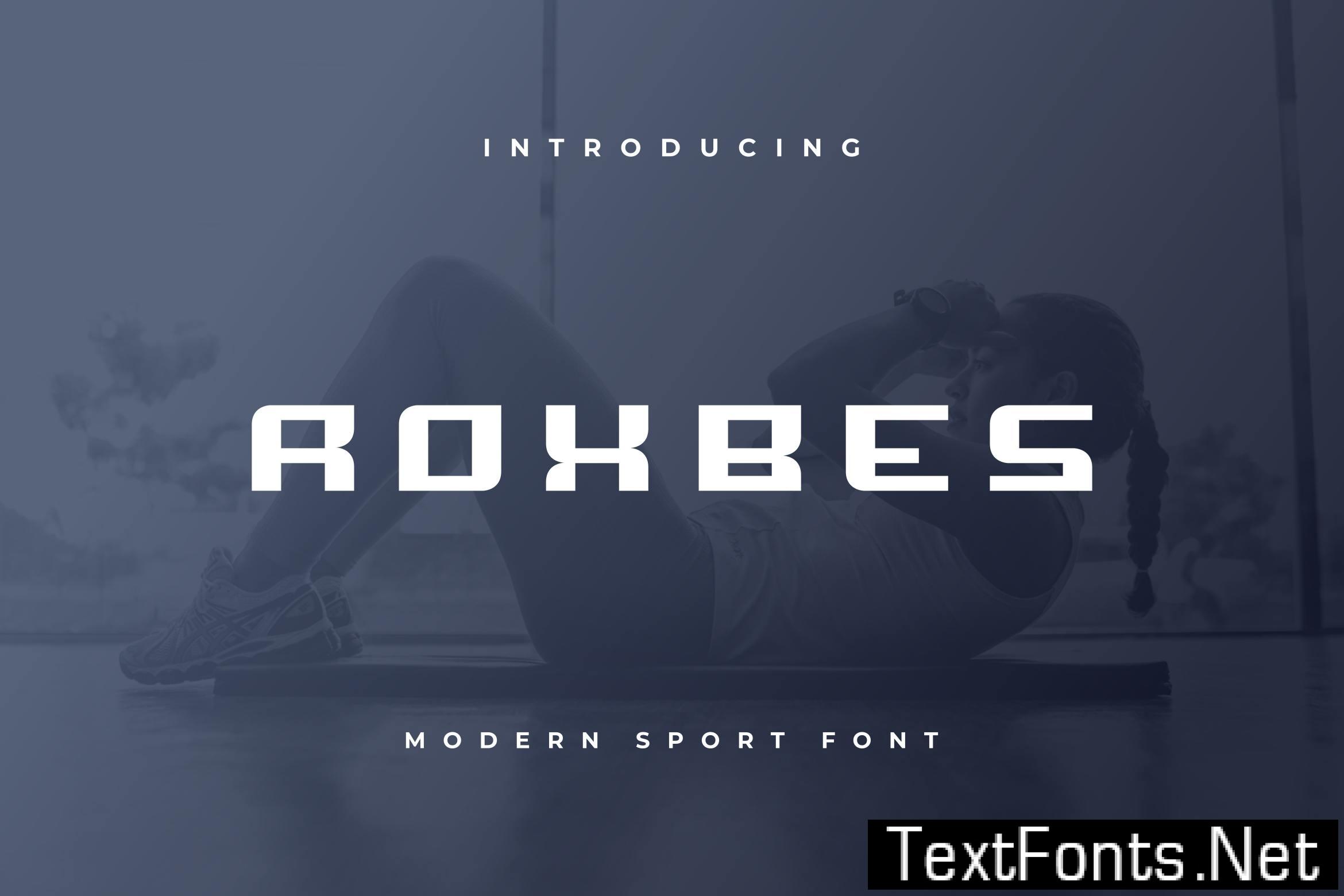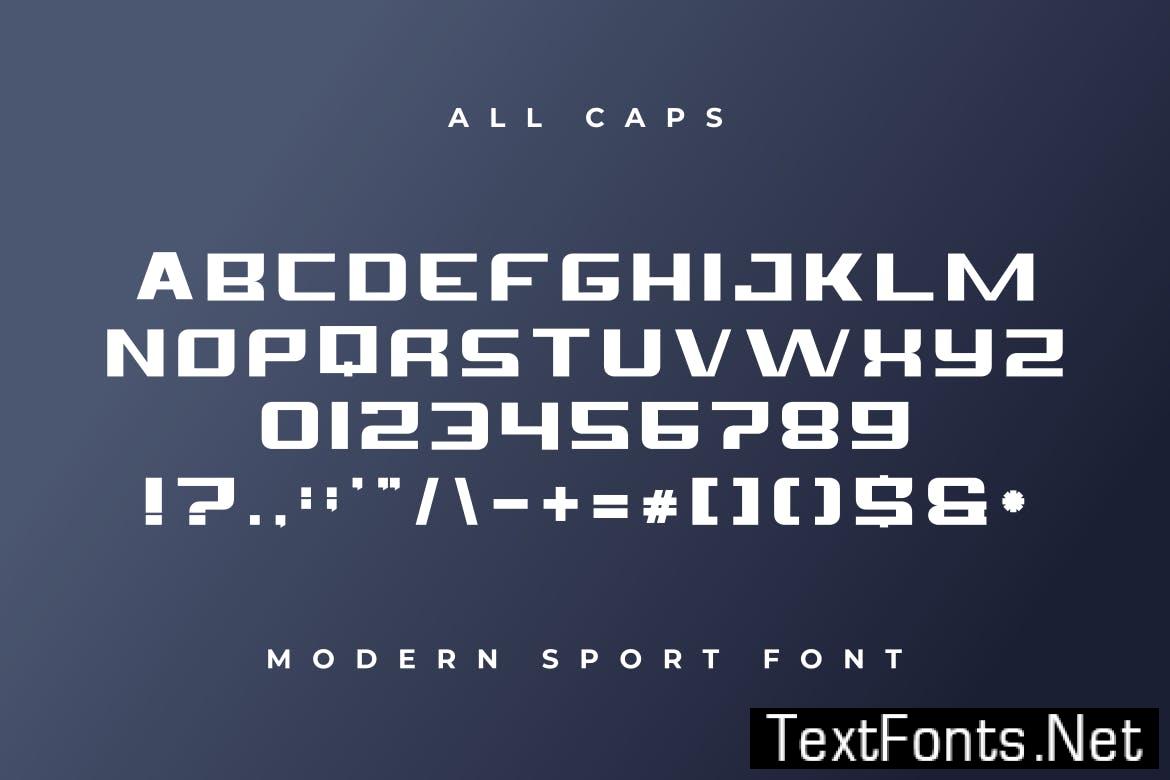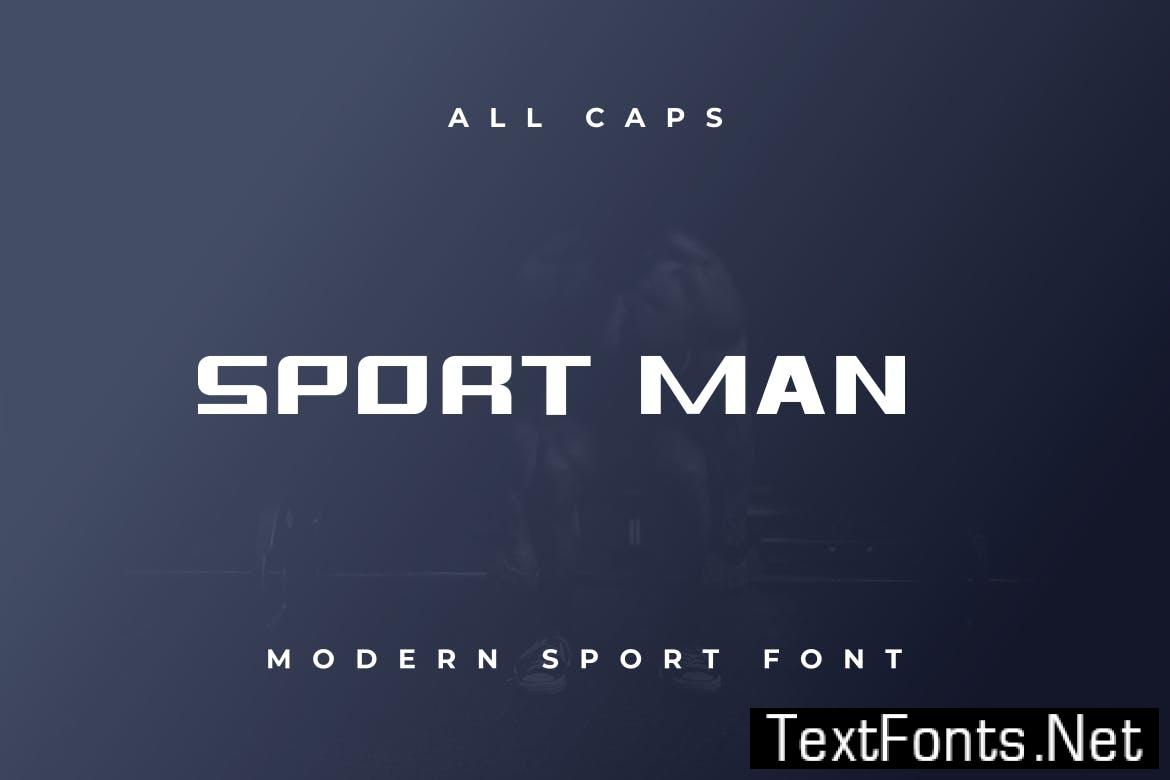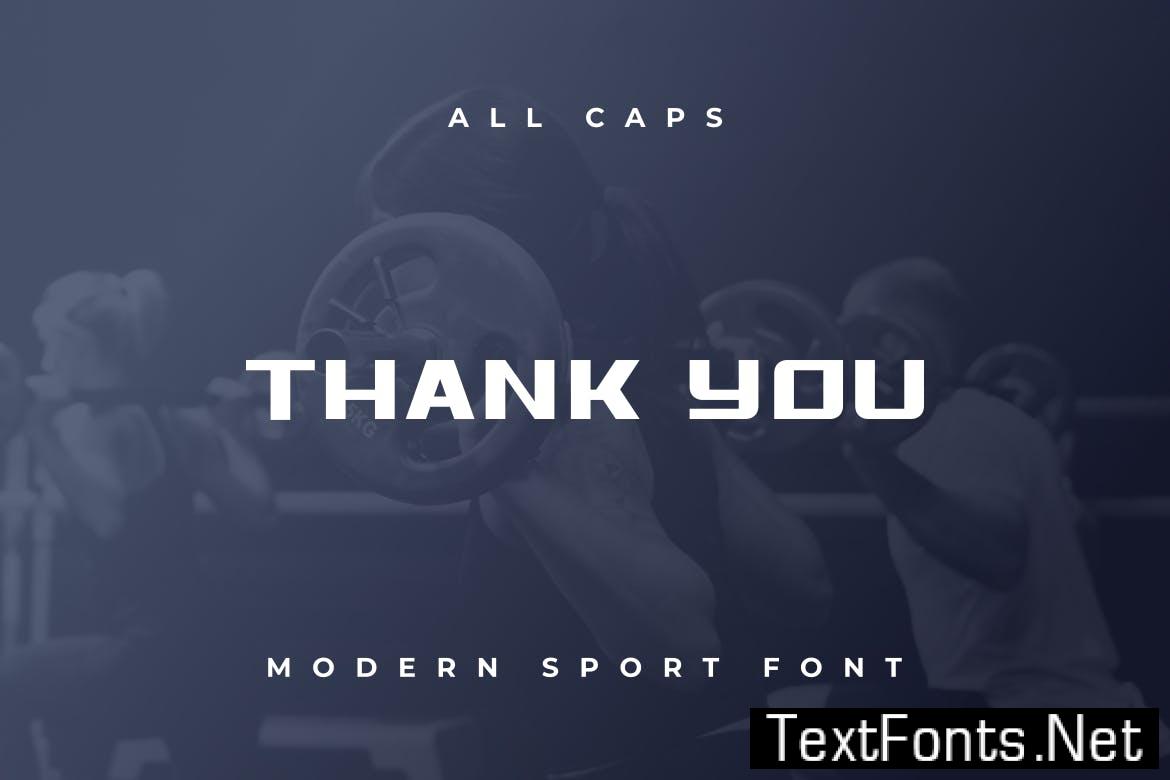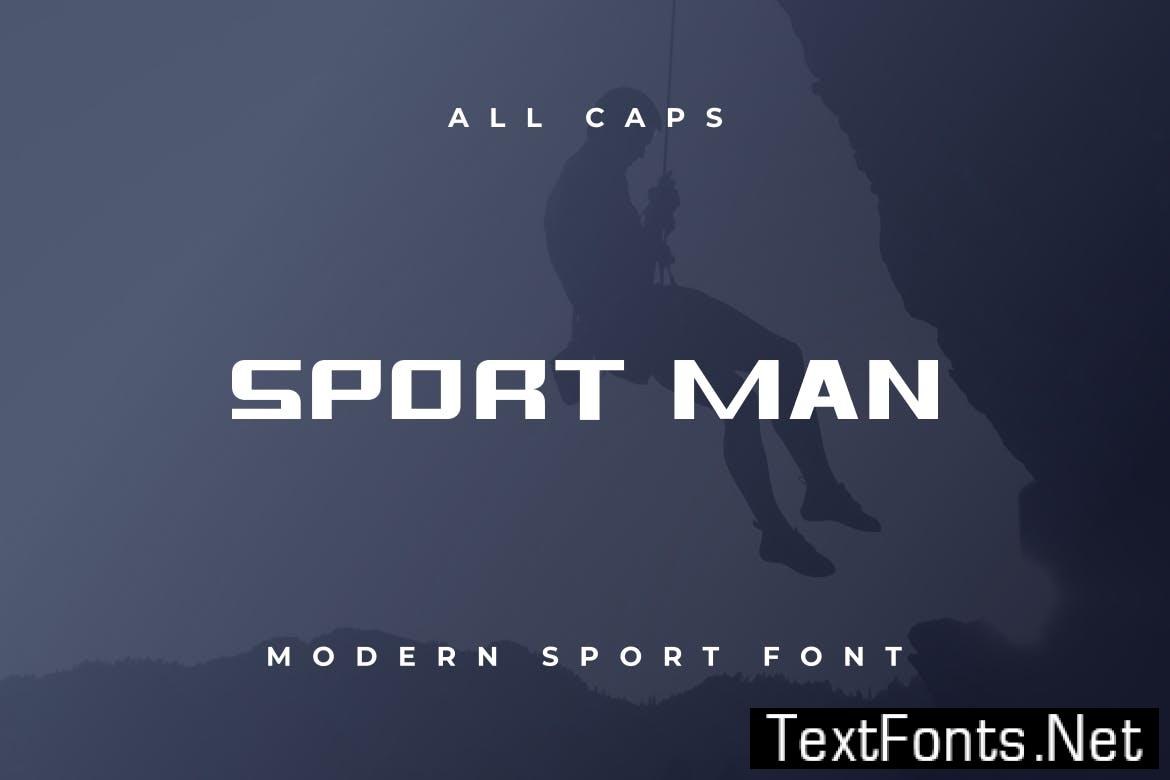
Introducing our new product **Roxbes Font** – Modern Font
**Roxbes Font** – Modern Font is a bold and authentic display font. The font is suitable for any branding project like logo, esport, and many more. outstanding in a wide range of contexts.
* Uppercase